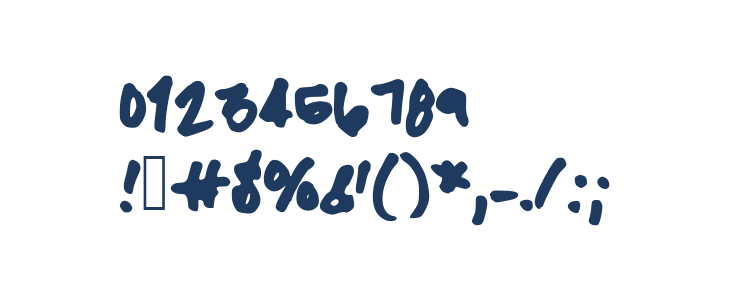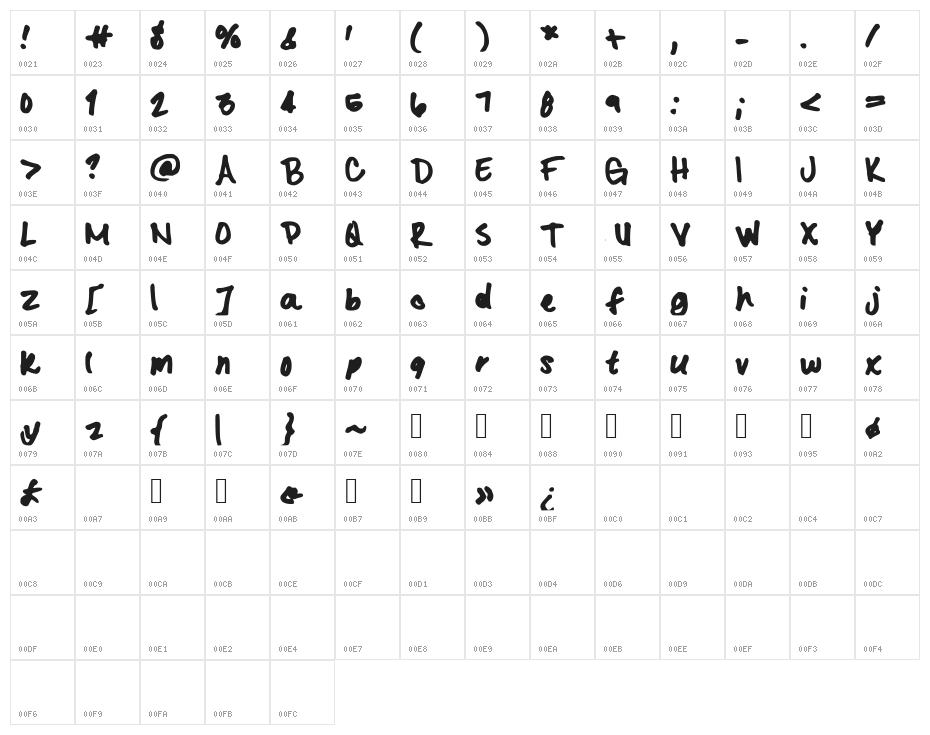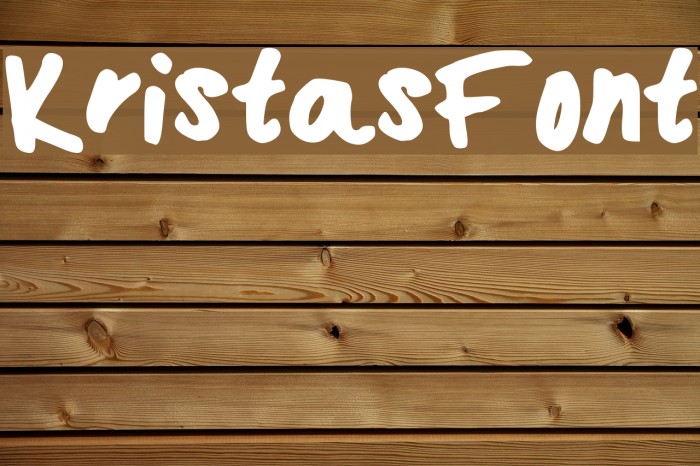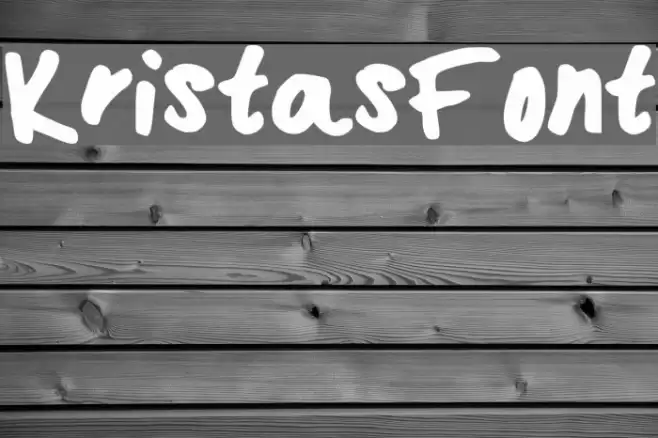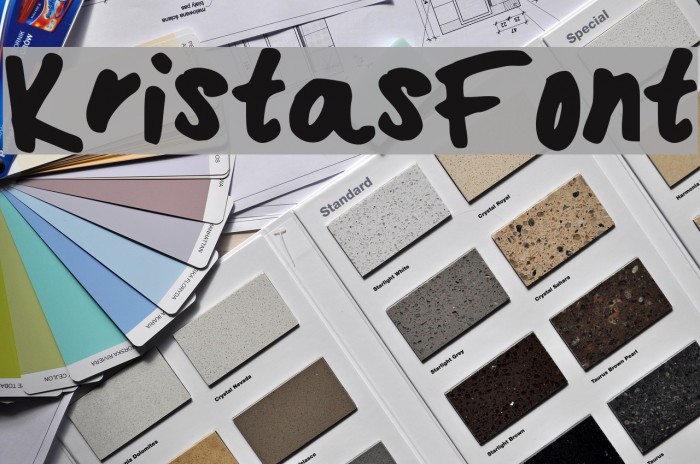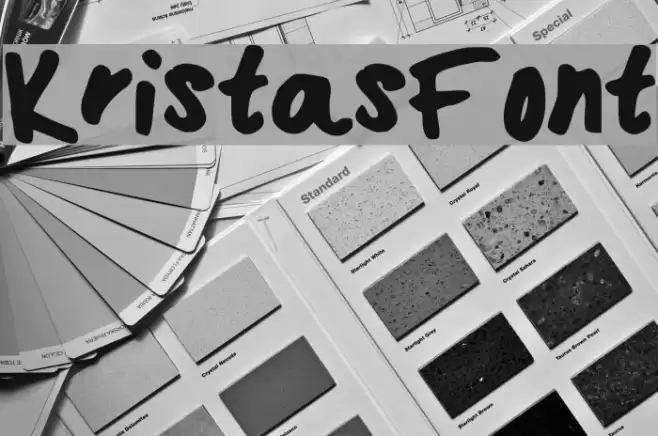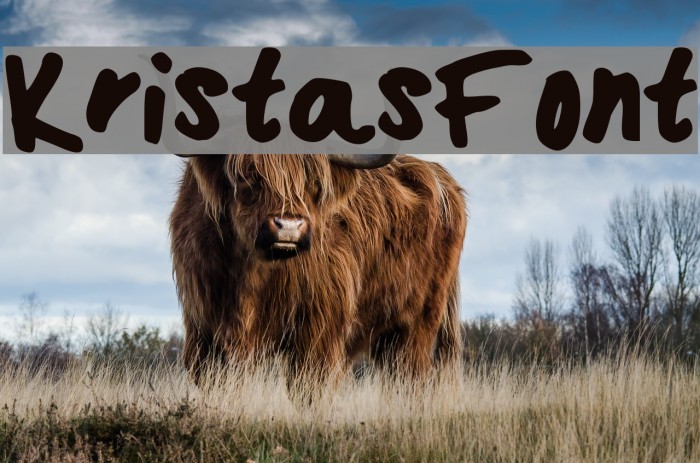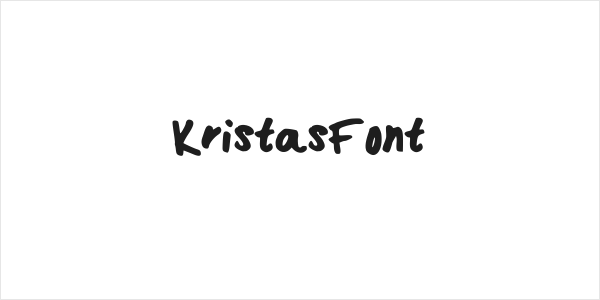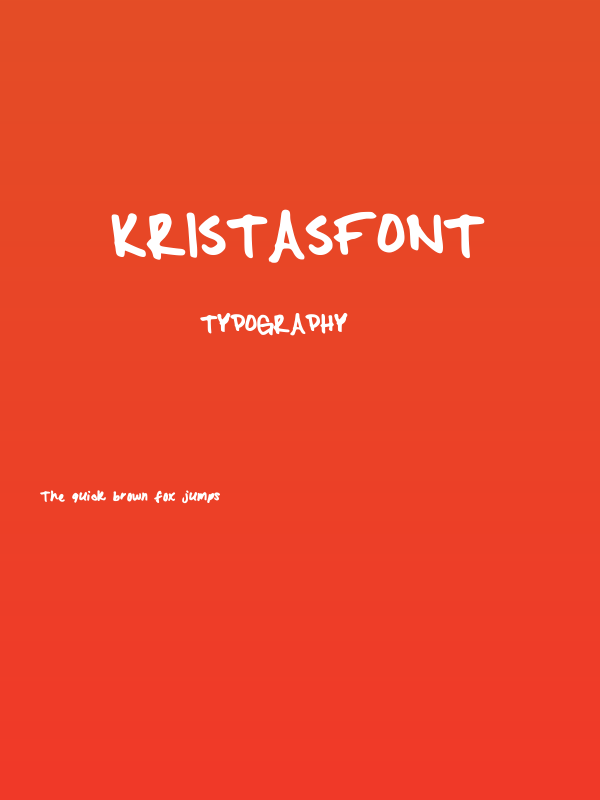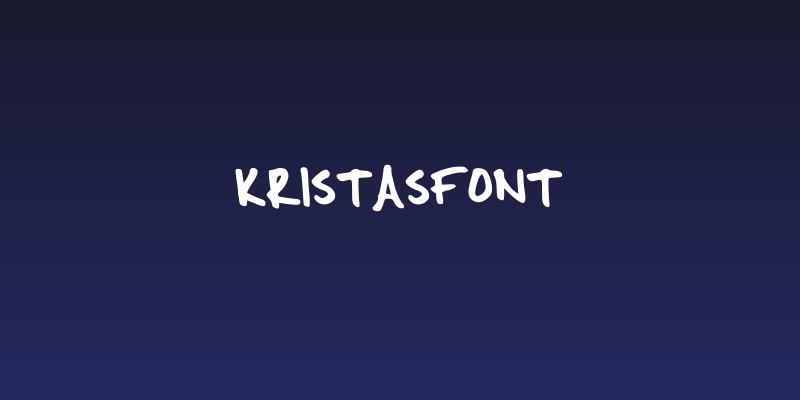
KristasFont Font
KristasFont Description
This font features a bold and playful handwritten style with a casual, informal appearance. The characters are thick and rounded, giving them a friendly and approachable feel. The uppercase and lowercase letters maintain a consistent style, with a slightly irregular baseline that adds to the handwritten charm. The numbers and special characters are equally bold and match the overall aesthetic, making this font versatile for various creative projects. The strokes are consistent in thickness, providing a uniform look across all characters.
| Overall Style | Playful, Casual |
| Proposed Projects | Ideal for greeting cards, children's books, playful branding, and social media graphics. |